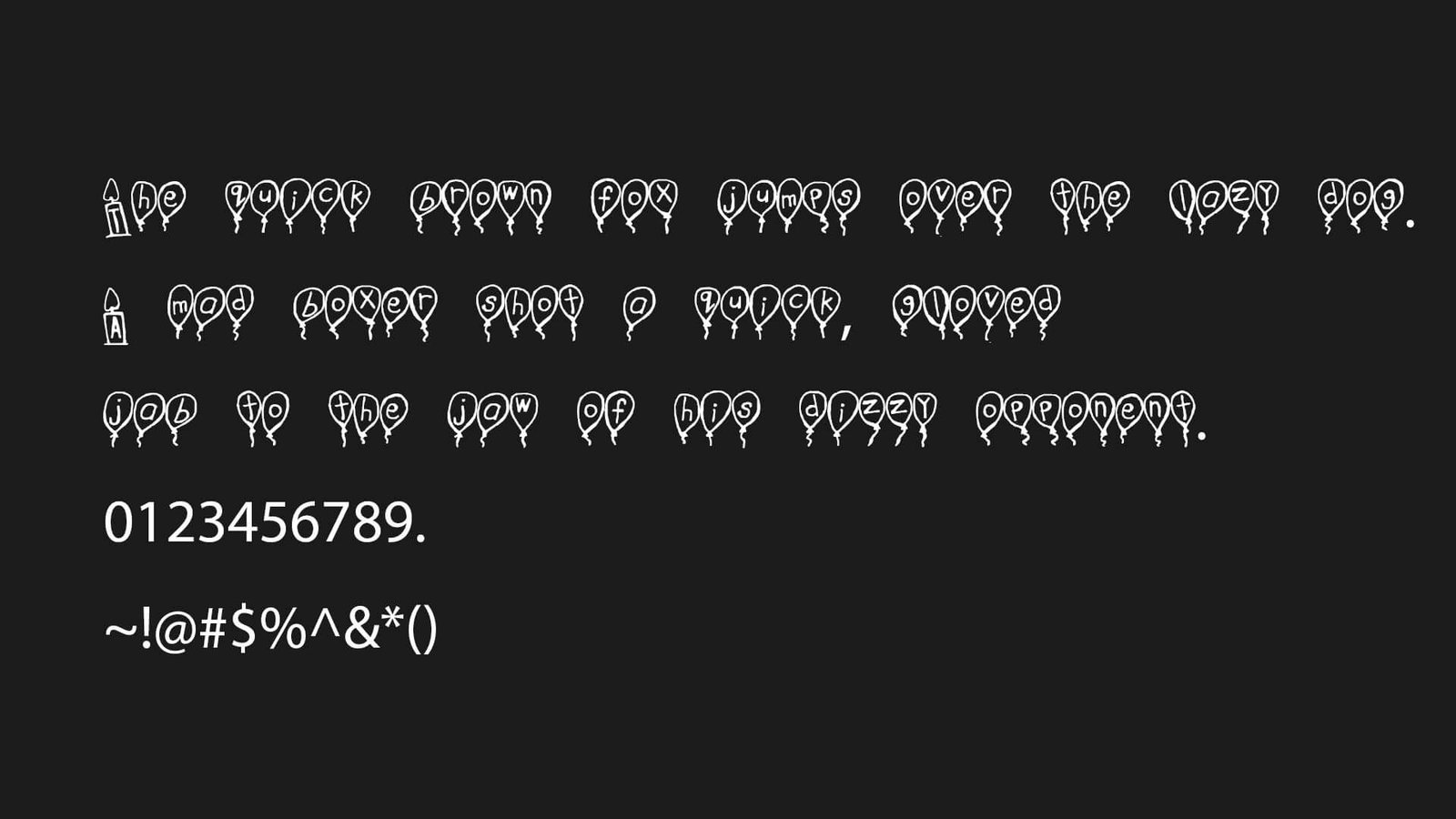
Happy fancy birthday font contains more than 70+ free and premium subtitles for Birthday celebrating parties. Happy birthday fancy font is used in different fields. This Typeface is free of Cost for Your personal Usage. You can use this typeface in any Party to Celebrate.
Happy Birthday Fancy Font Family
| Name | Happy birthday fancy font |
| Designer | WOODCUTTER |
| Style | Sans-serif |